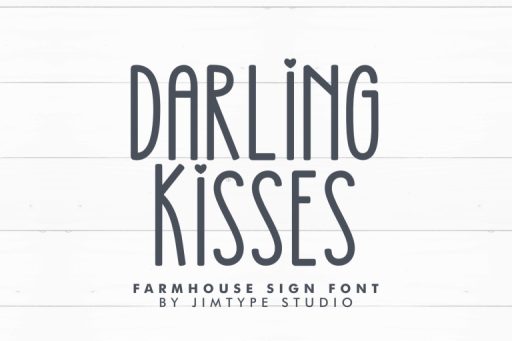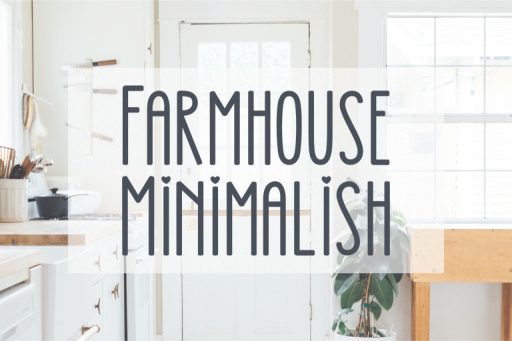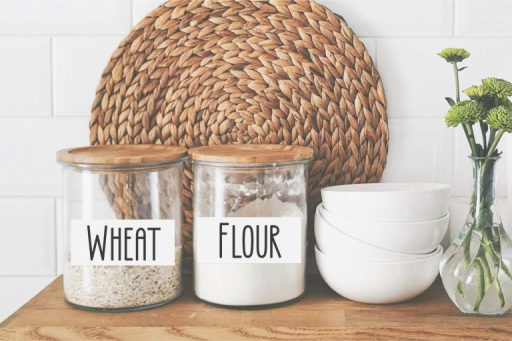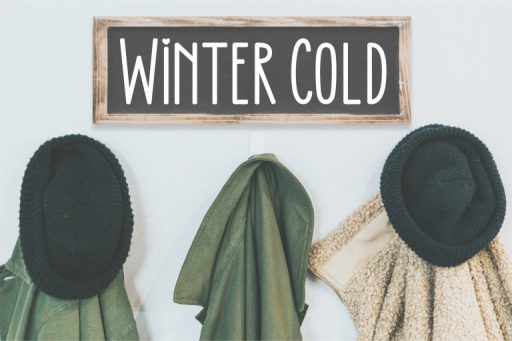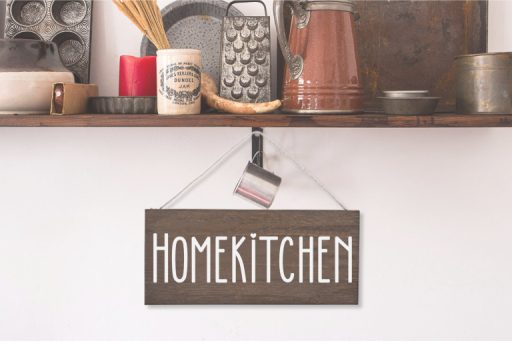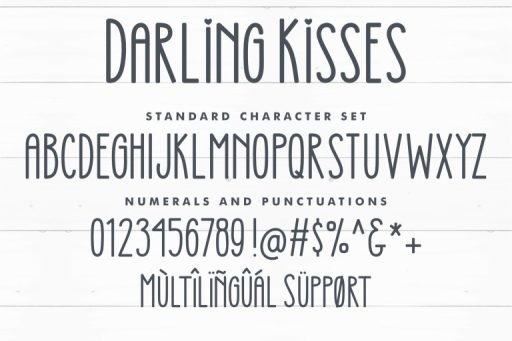
Darling Kisses Tall and Skinny Farmhouse Font From Jimtype Studio
Darling Kisses
Darling Kisses – Farmhouse Font from Jimtype Studio
Elevate your designs with the enchanting “Darling Kisses” font, a harmonious blend of love-inspired elegance, signature-worthy style, and quirky charm.
Whether you’re declaring love, creating memorable signage, or adding a touch of whimsy to your brand, Darling Kisses Font is your versatile companion. Let your designs speak the language of love with this delightful and expressive typeface.